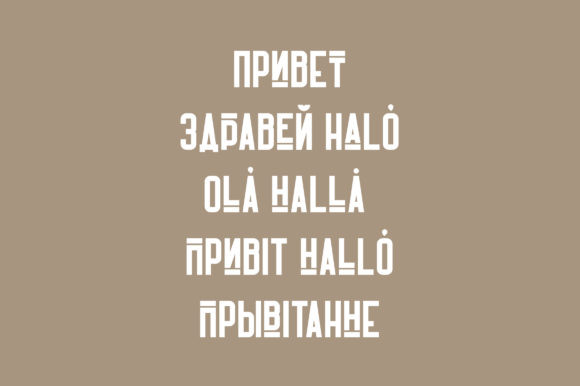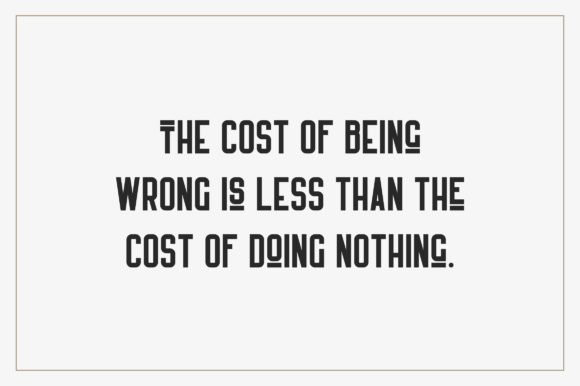
Harrison Regular Font
Harrison is a bold and casual display font. This font is perfect for branding projects, home-ware designs, product packaging, magazine headers – or simply as a stylish text overlay to any background image.